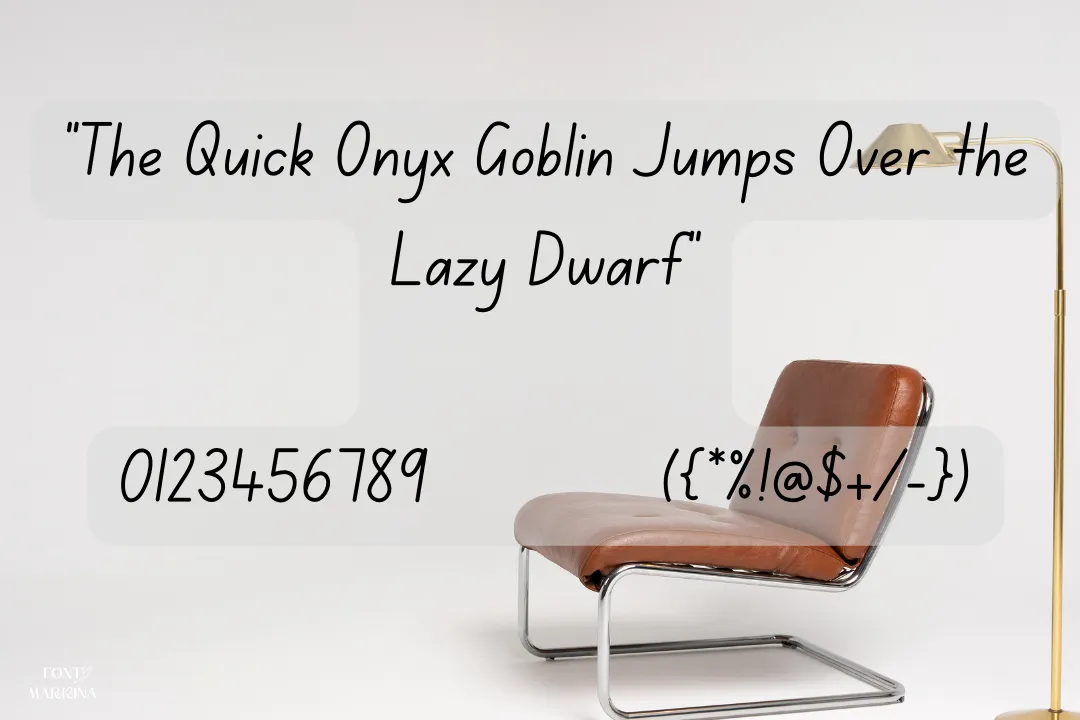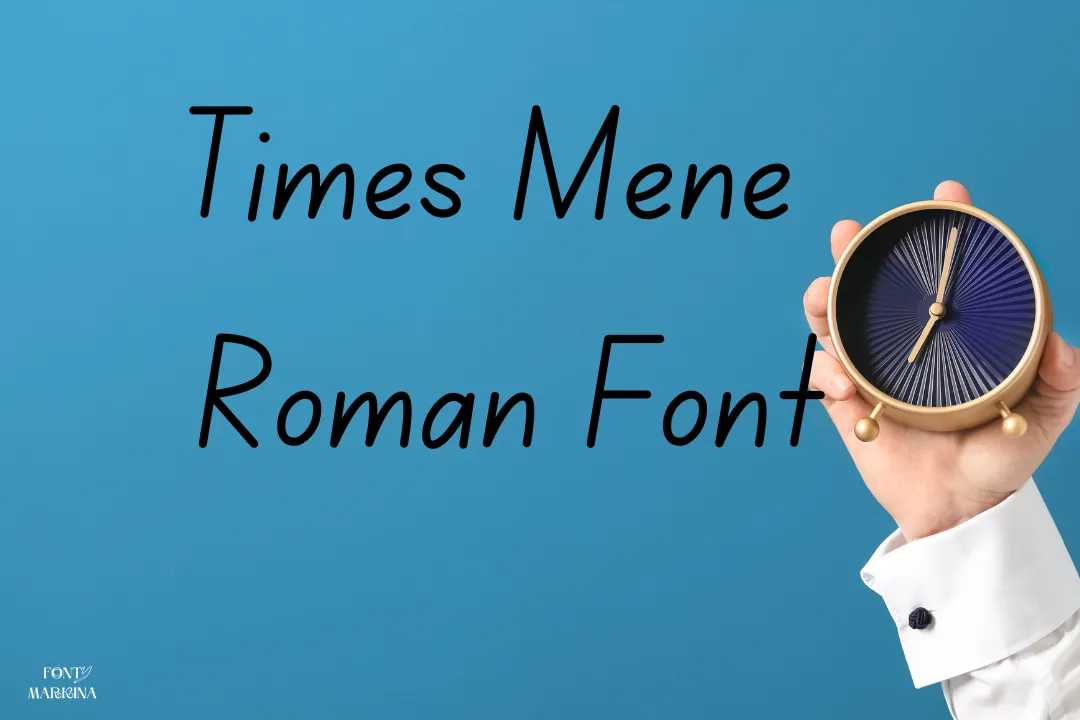
Presenting a one-of-a-kind handwritten font family. The Times Mene Roman Font has a new and contemporary texture that is design by a well-known graphic designer name Miguel Angel Gomez del Valle.
This wonderful font includes elements with a bold and broken appearance, as well as lowercase, numbers, capital letters, and particular punctuation. You can easily get its zip file free from this unique site for all your secret goals.
Uses of Times Mene Roman Font
For various presenting needs, this hand-drawn font’s distinctive qualities are ideal. Numerous languages, including Greek, French, Indian, and English. You can use it according to your needs.
For text documents like those found in newspapers, books, and periodicals, it is an excellent typeface. Making logos, names, letter designs, and advertisements is all possible using this font. Furthermore, this attractive typeface is excellent for designing trademarks, brochure layouts, printings, email templates, and photographs.
You may also utilize this font for making Youtube thumbnails, posters, video editing, social media posts, advertisements, and much more designs. It pairs well with the adelliya script Font, allowing designers to produce eye-catching designs.
Times Mene Roman Font View
Is there a Times Mene Roman Font?
The handwritten texture family is what this Times Mene Roman Font falls under, and it offers a clean, fashionable surface that will assist you to finish critical jobs.
Is Times Mene Roman texture free?
What is Times Mene Roman Font used for?
The Times Mene Roman texture is a handwritten texture family that is specially built for headlines and printing purposes.